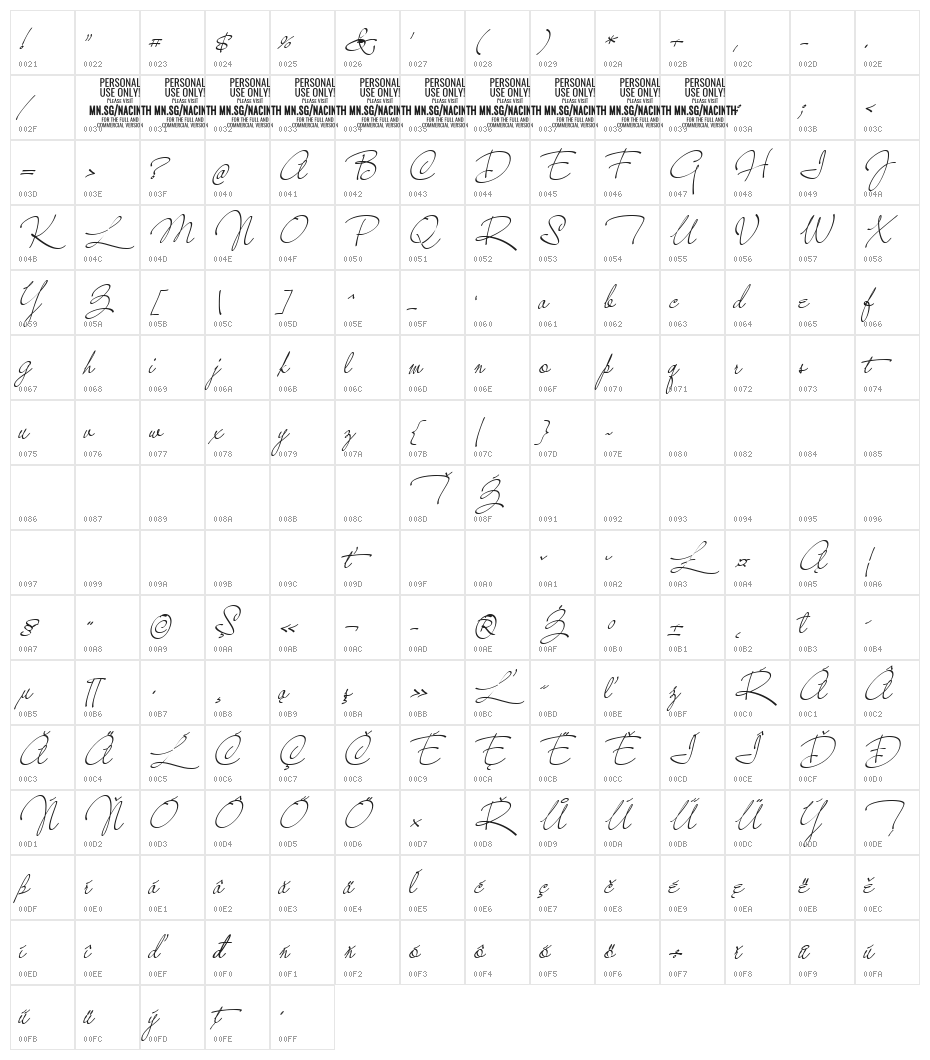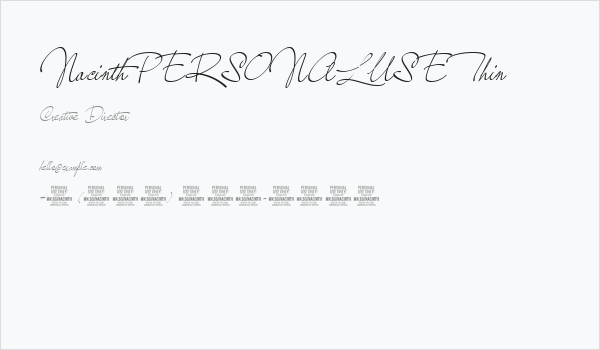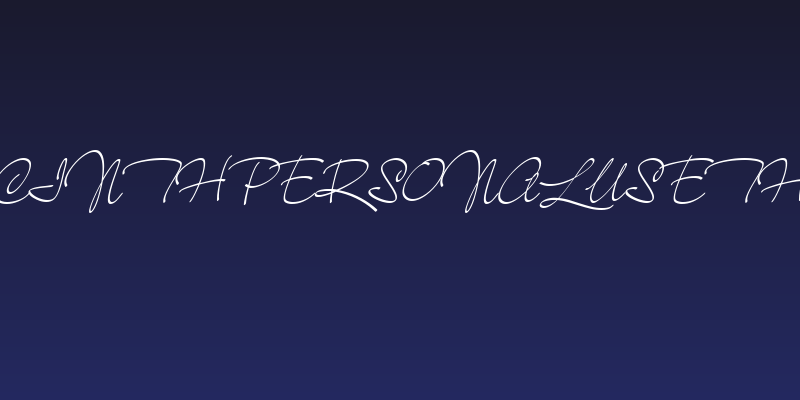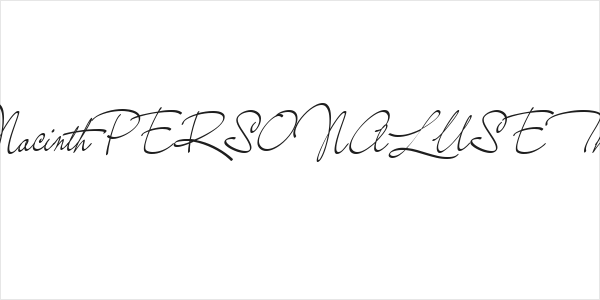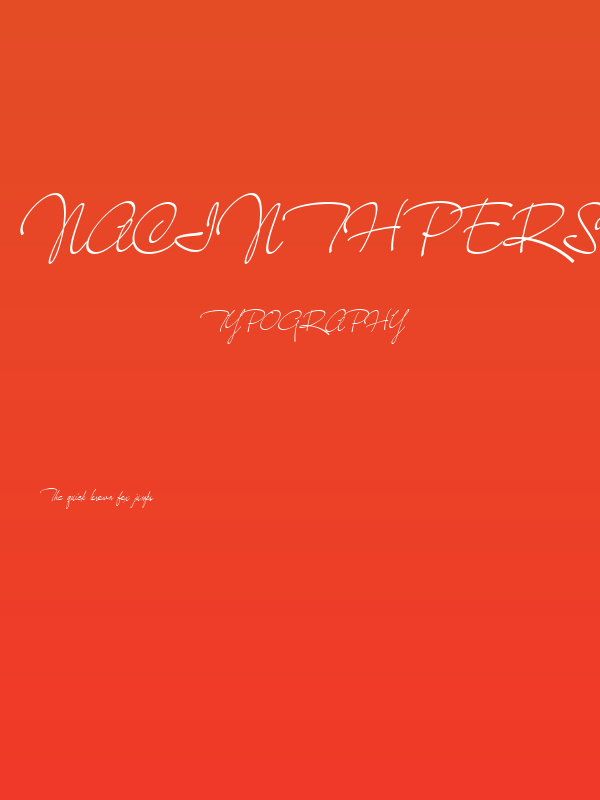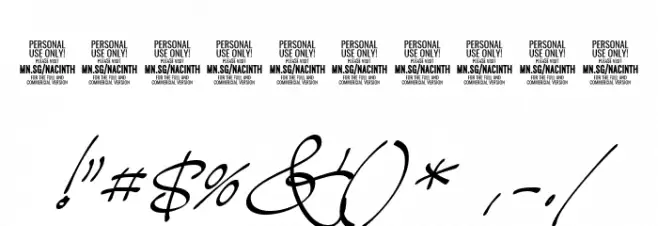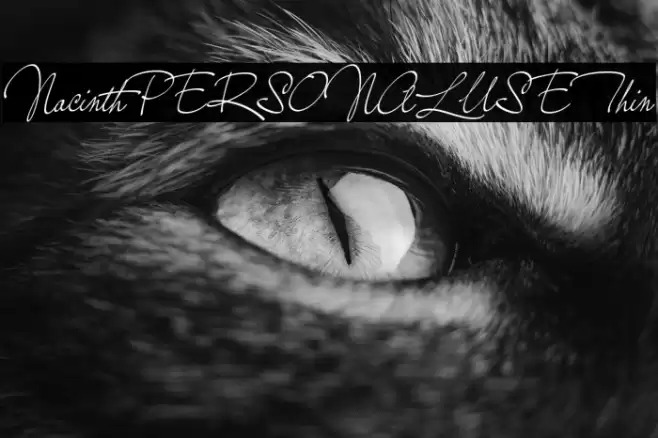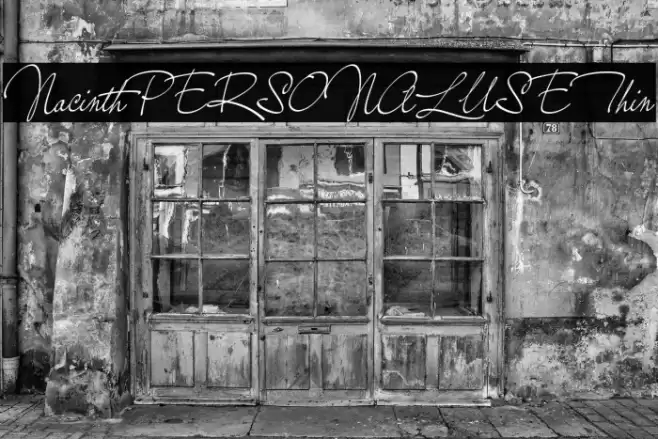
NacinthPERSONALUSEThin Font
NacinthPERSONALUSEThin Description
This elegant script font features a flowing, cursive style with thin, delicate strokes that give it a sophisticated and refined appearance. The characters are intricately designed, with graceful loops and swashes that add a touch of elegance and fluidity. The uppercase letters are slightly larger and more ornate, while the lowercase letters maintain a consistent flow, enhancing the overall aesthetic. The font includes a full set of uppercase and lowercase letters, numbers, and a variety of special characters, making it versatile for various design needs. Its thin lines and high contrast between thick and thin strokes contribute to its stylish and modern look, suitable for projects that require a touch of elegance and class.
| Overall Style | Elegant, Modern |
| Use Case | Headlines, Invitations, Branding |
| Proposed Projects | Ideal for wedding invitations, elegant branding, personal stationery, and decorative headlines. |